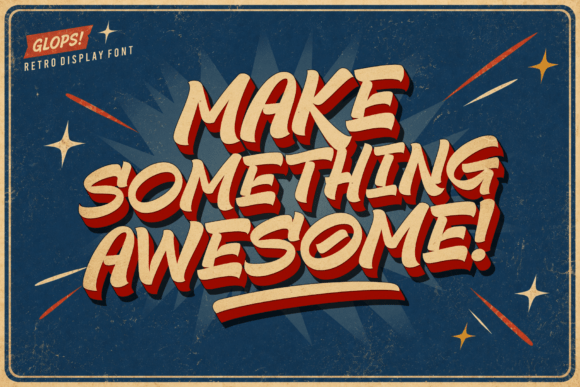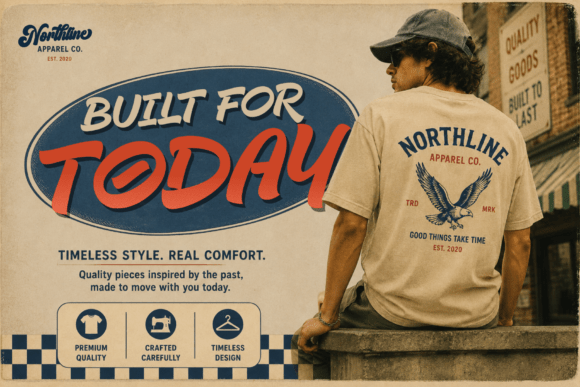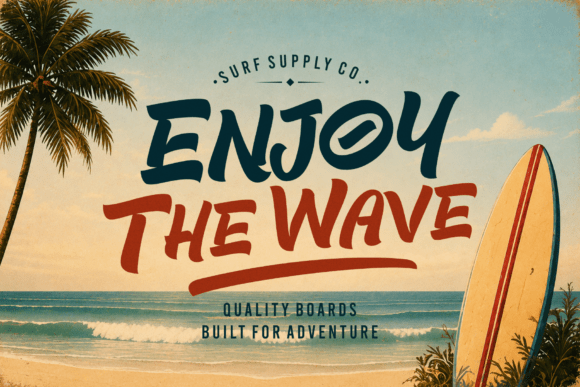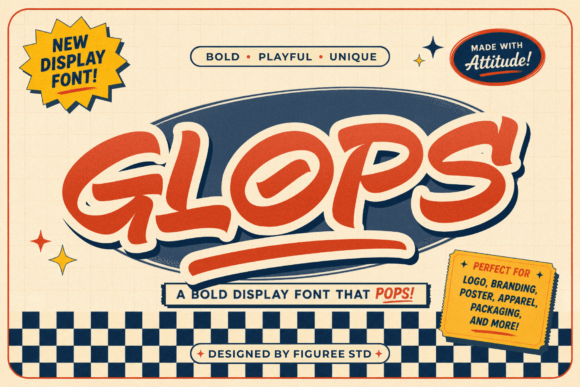
Introduction to Glops Font
Introducing Glops – Retro Brush Font, a bold all-caps typeface inspired by classic sign painting and clean brush lettering styles.
Designed with strong strokes and natural movement, this font delivers an authentic retro feel while maintaining solid readability for modern creative projects With its hand-painted character and vintage-inspired shapes, Glops is suitable for posters, restaurant menus, café signage, packaging, social media graphics, YouTube thumbnails, album artwork, and headline typography.
Key Features of Glops Font